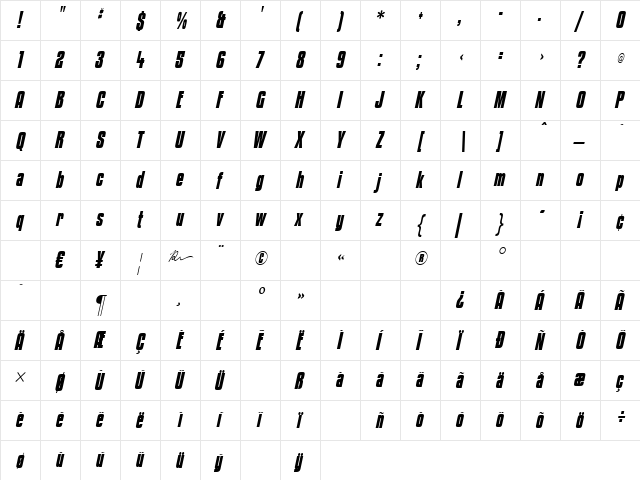
Kenyan Coffee Bold Italic
Design Context for Kenyan Coffee Typeface
Kenyan Coffee offers clean, dependable letterforms without strong stylistic allegiance, making it a practical choice for designers who need flexibility. The slanted form adds forward momentum and visual energy. The heavy weight commands attention and anchors typographic hierarchies.
Pro Tip: Use Kenyan Coffee for emphasis, pull quotes, and subheadings where its slanted energy can add rhythm to the layout.